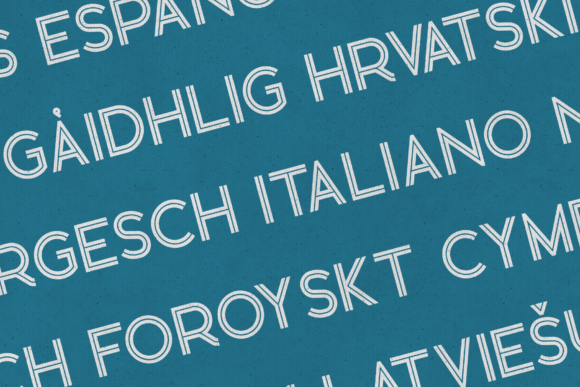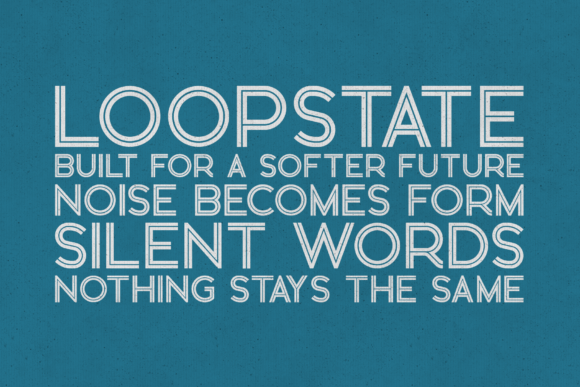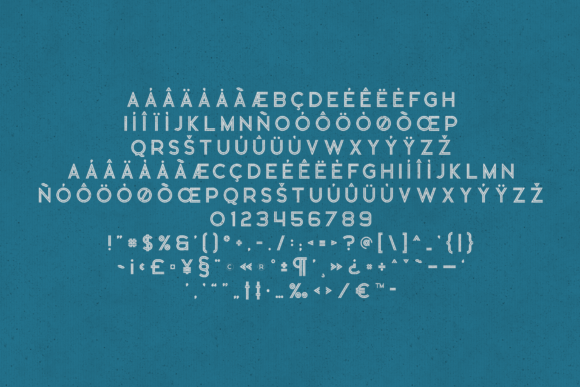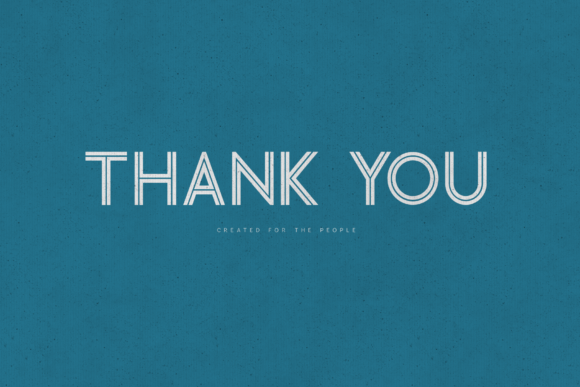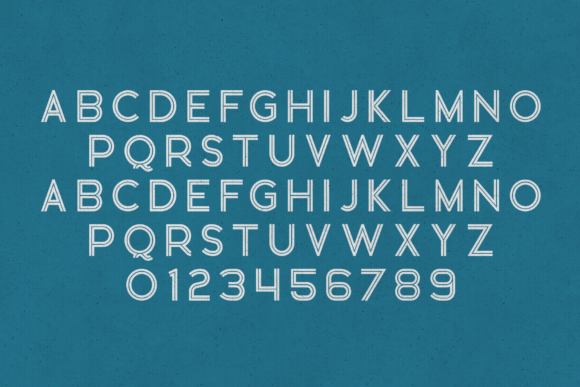
Bronx Twolines Edition Font: Elevate Your Designs with Modern Urban Flair
In the realm of typography, few fonts manage to capture the essence of urban sophistication and modernity as effectively as the Bronx Twolines Edition. This contemporary outline display font is meticulously designed to bring a bold yet refined aesthetic to a variety of design projects, ranging from headlines and posters to branding, editorial layouts, and modern visual identities.
Distinctive Double-Line Construction
The hallmark of the Bronx Twolines Edition font is its distinctive double-line construction, which sets it apart from more traditional typefaces. Inspired by the geometric precision of urban architecture and the clean lines of contemporary typography, this font embodies the spirit of modern cityscapes. Its unique design not only adds depth and structure to any project but also ensures excellent readability, making it a versatile tool for designers.
Bronx Twolines Edition Font Example
One of the key strengths of the Bronx Twolines Edition font is its versatility. It functions beautifully as a standalone logo mark, capable of making a significant impact on its own. However, its potential is further enhanced when paired with a clean, solid sans-serif font for secondary information. This combination allows designers to create a visually appealing hierarchy of information, perfect for editorial layouts, branding materials, and digital content.
Geometric Precision and Industrial Flair
The geometric precision and industrial flair of the Bronx Twolines Edition make it an ideal choice for designers looking to infuse their projects with a modern, street-style aesthetic. Whether it’s for a fashion brand, a tech startup, or an architectural firm, this font delivers a look that is both contemporary and sophisticated. Its ability to convey a sense of urban chic and modernity makes it a valuable addition to any designer’s toolkit.
Extensive Character Set and Multilingual Support
The Bronx Twolines Edition font is not just visually striking; it’s also highly functional. It includes a comprehensive set of characters, featuring uppercase and lowercase letters, numerals, punctuation, and extensive multilingual support. This extensive character set ensures that the font can be used in a wide range of projects, from print materials like brochures and posters to digital content such as websites and social media graphics.
Ready for Professional Use
For designers and crafters alike, the Bronx Twolines Edition font offers a wealth of creative possibilities. Its modern urban flair and versatile design make it an excellent choice for a variety of projects, from professional branding campaigns to personal crafting projects. With this font, you can add a touch of sophistication and modernity to your work, ensuring that it stands out in a crowded design landscape.
In conclusion, the Bronx Twolines Edition font is a powerful tool for anyone looking to add a modern, urban aesthetic to their designs. Its distinctive double-line construction, geometric precision, and industrial flair make it a versatile and stylish choice for a wide range of projects. With its extensive character set, multilingual support, and OTF format, this font is ready for use in both print and digital projects. Whether you’re a professional designer or a crafting enthusiast, the Bronx Twolines Edition is sure to become a valuable asset in your creative arsenal.